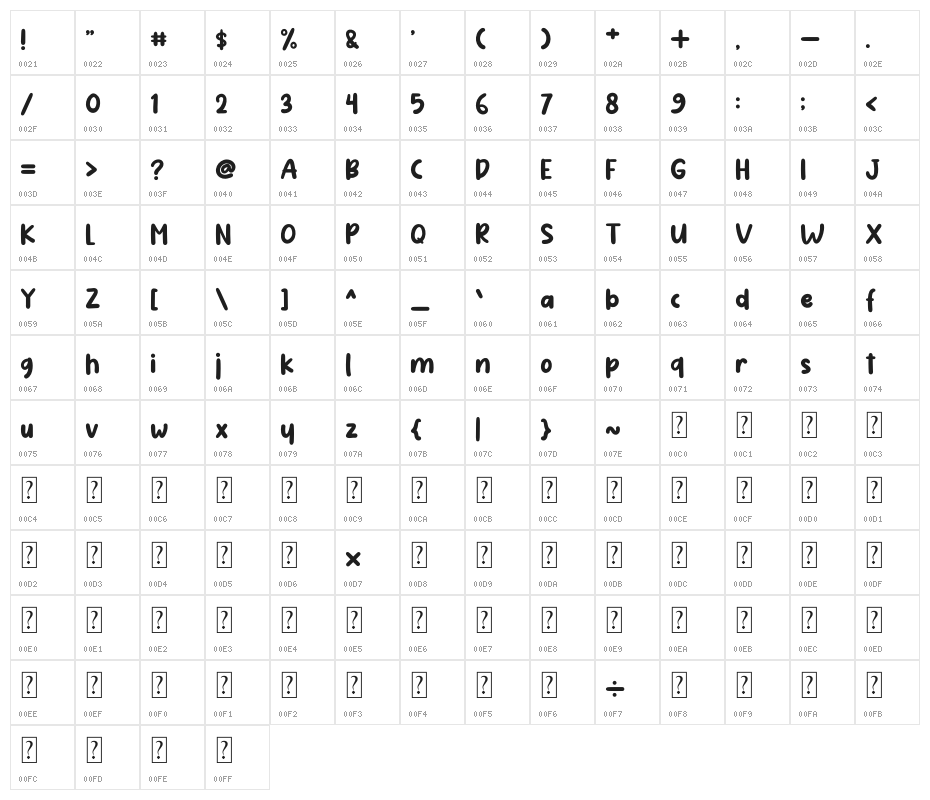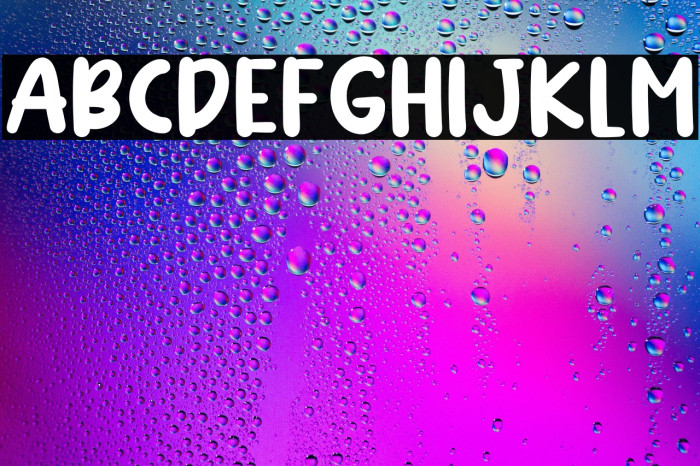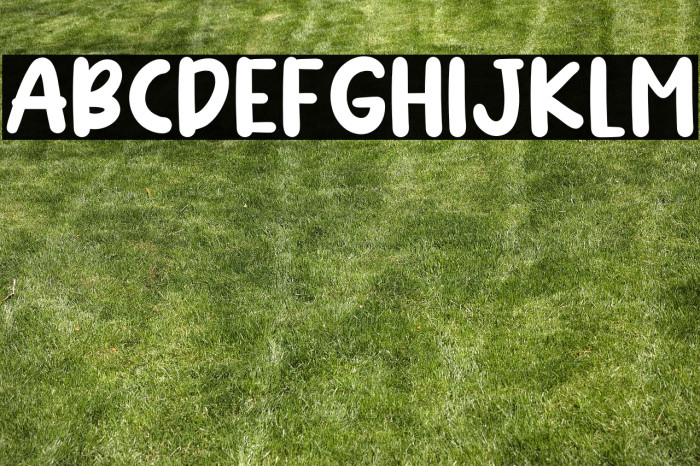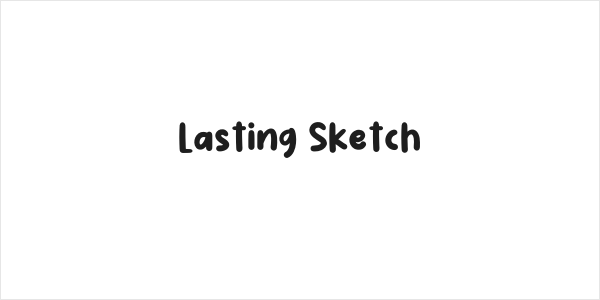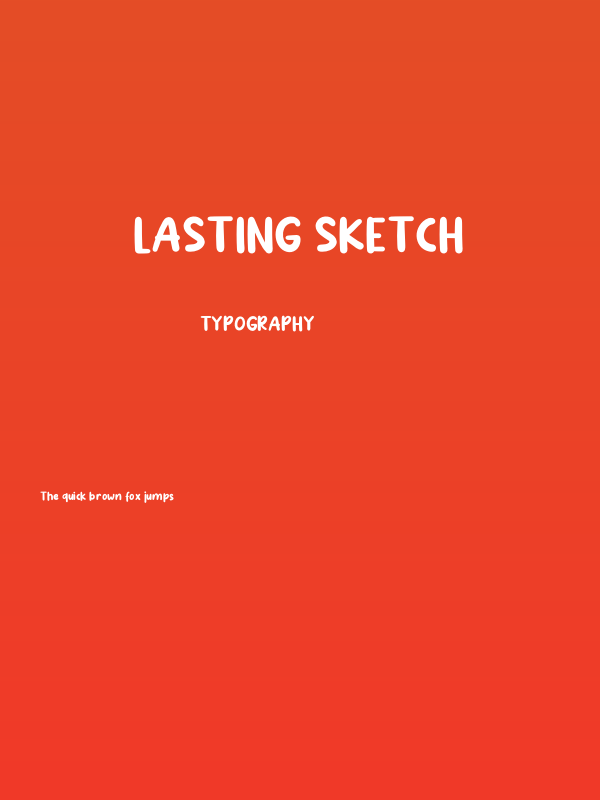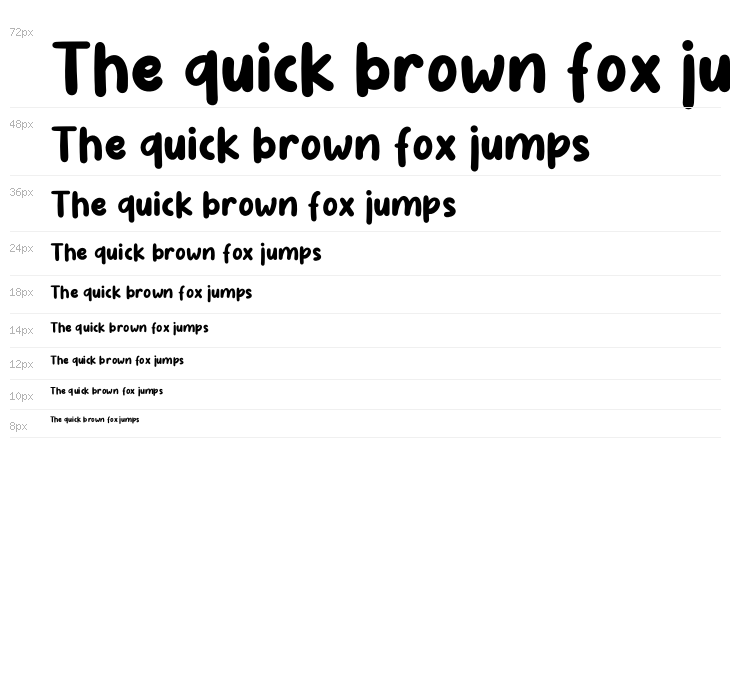
Lasting Sketch Font
Lasting Sketch Description
This playful and bold font features rounded, hand-drawn characters that exude a casual and friendly vibe. The letters are thick and slightly irregular, giving them a unique, sketch-like appearance. The uppercase and lowercase letters maintain a consistent style, with smooth curves and a slightly whimsical touch. The numbers and special characters follow the same design, ensuring a cohesive look across all elements. This font is perfect for projects that require a personal, approachable feel, such as children's books, playful branding, or creative posters.
| Overall Style | Playful, Casual |
| Proposed Projects | Ideal for children's books, playful branding, creative posters, and casual invitations. |